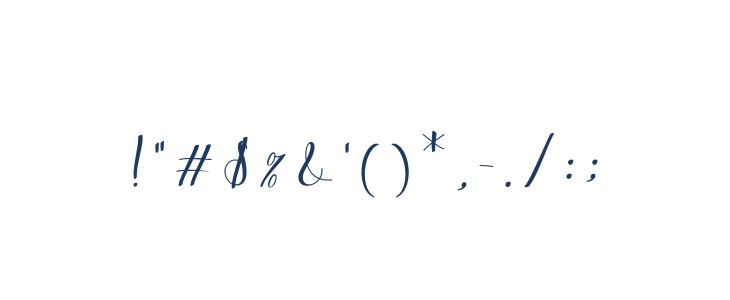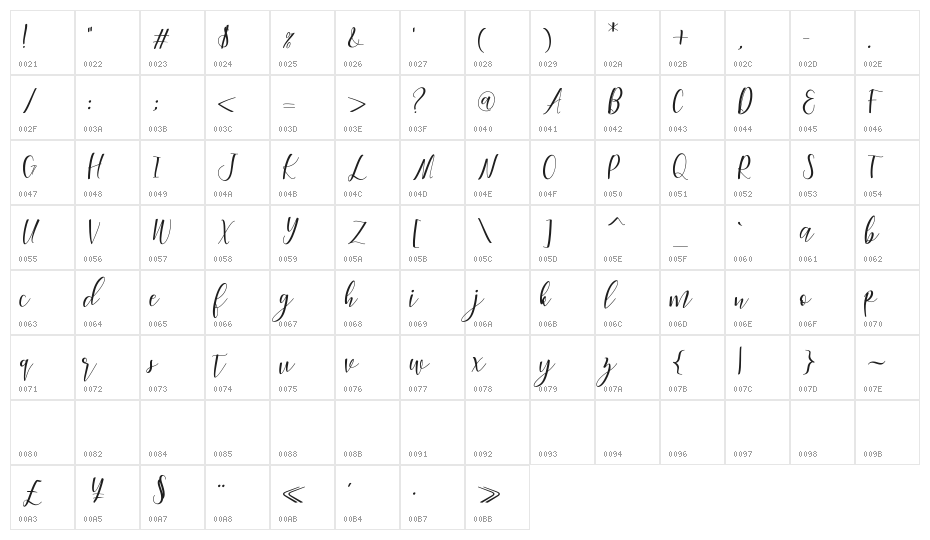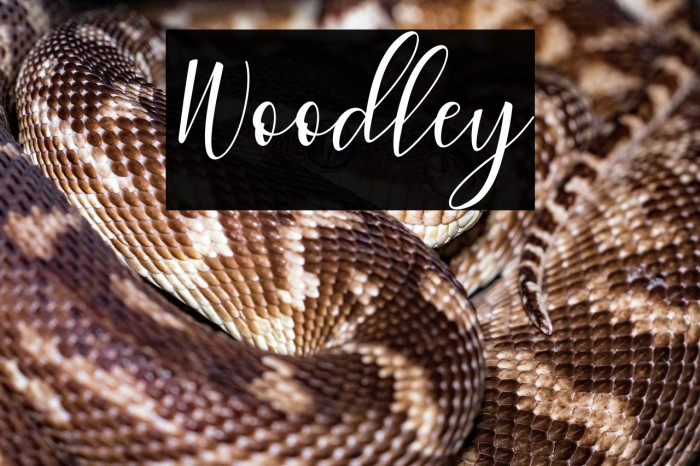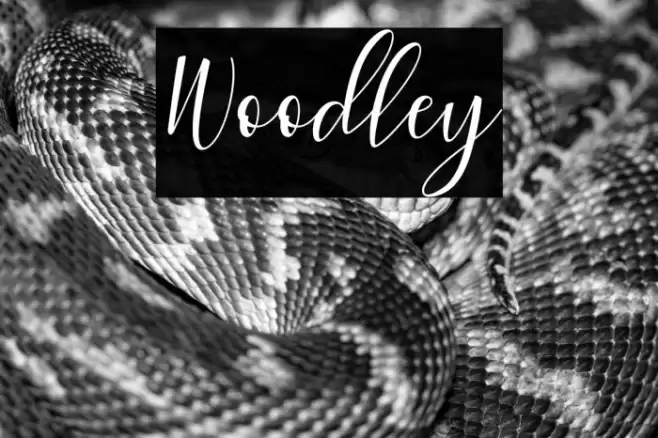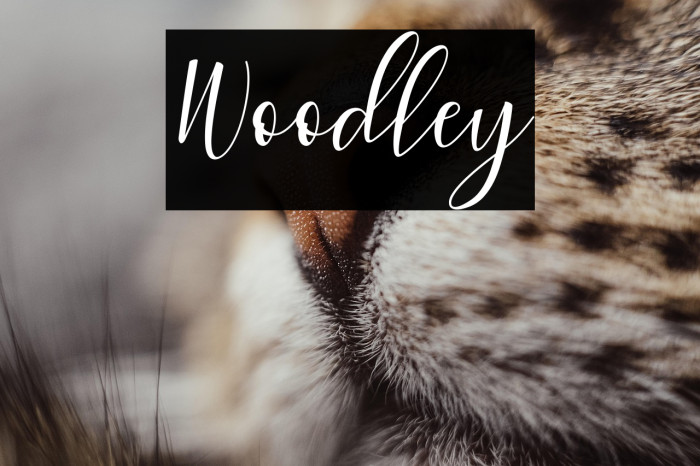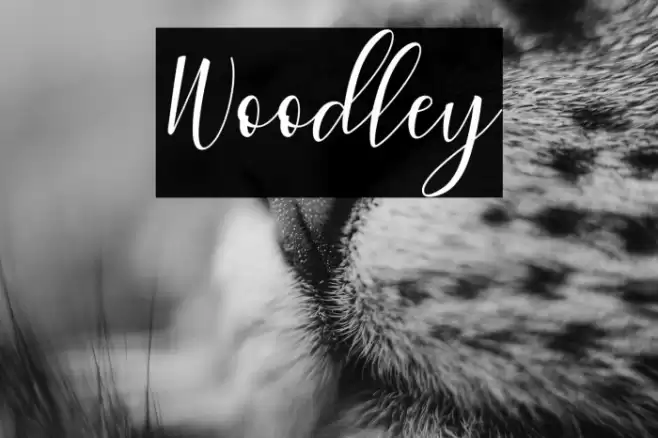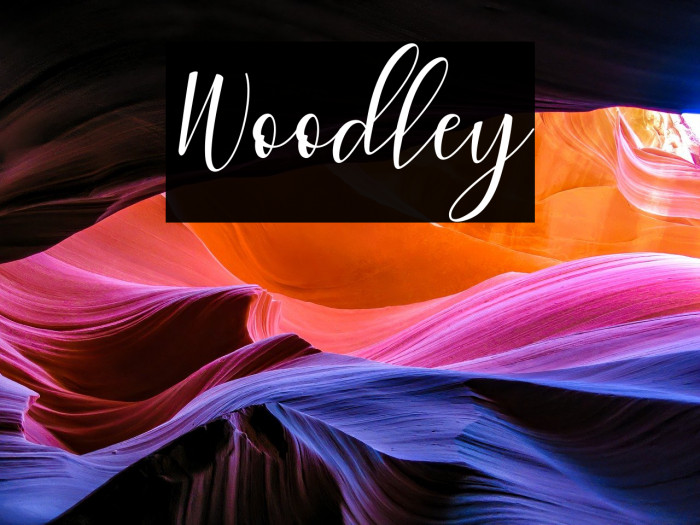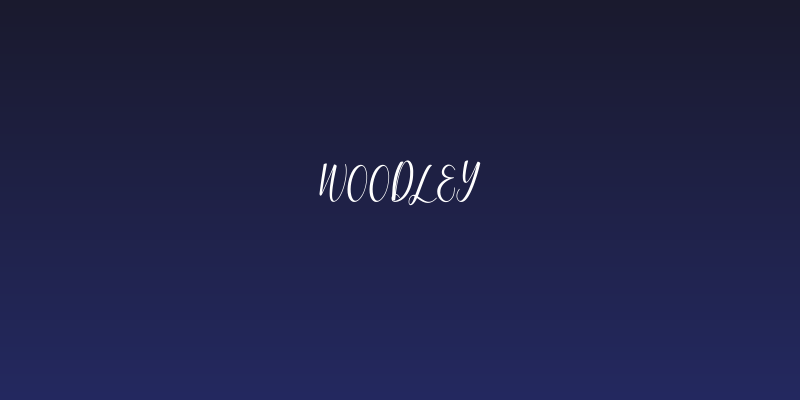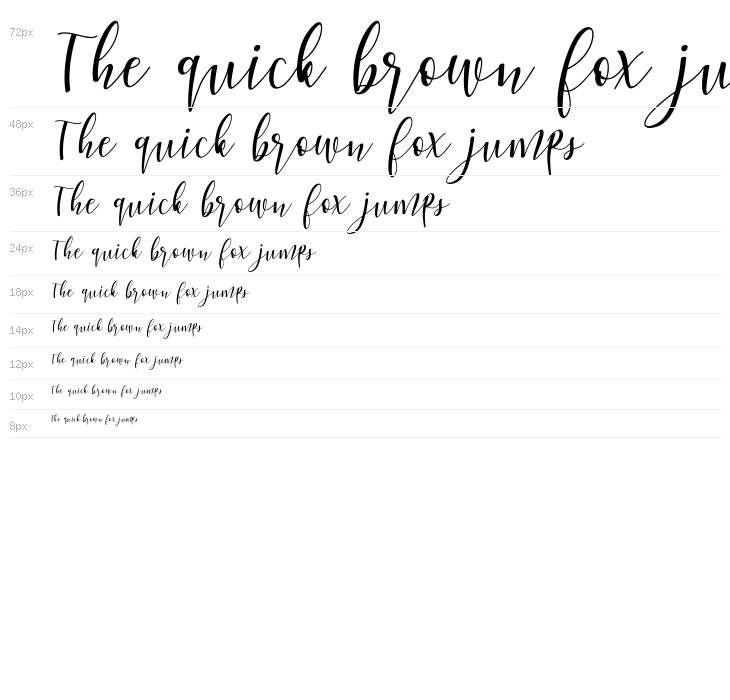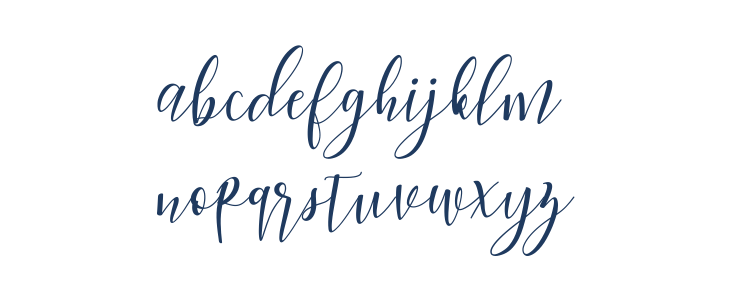
Woodley Font
Woodley Description
This elegant script font features a flowing, handwritten style with a modern twist. The characters are gracefully connected, creating a sense of fluidity and movement. The uppercase letters are tall and slender, while the lowercase letters maintain a consistent rhythm with their loops and curves. The font exhibits a high contrast between thick and thin strokes, enhancing its sophisticated appearance. Special characters are seamlessly integrated, maintaining the overall aesthetic. This font is perfect for projects that require a touch of elegance and personal flair.
| Proposed Projects | Ideal for wedding invitations, branding, greeting cards, and elegant logos. |